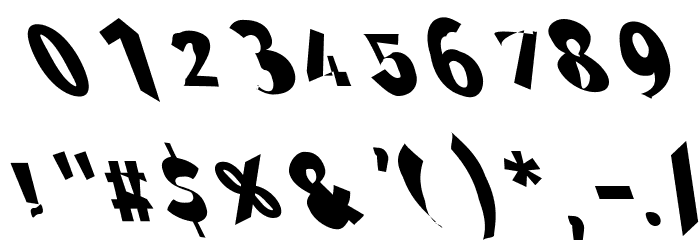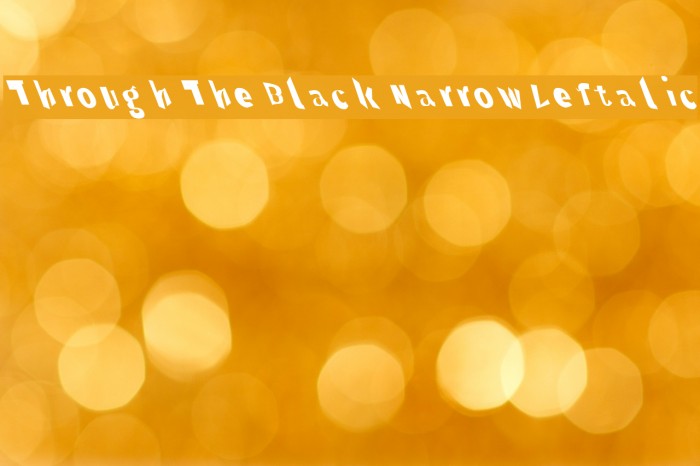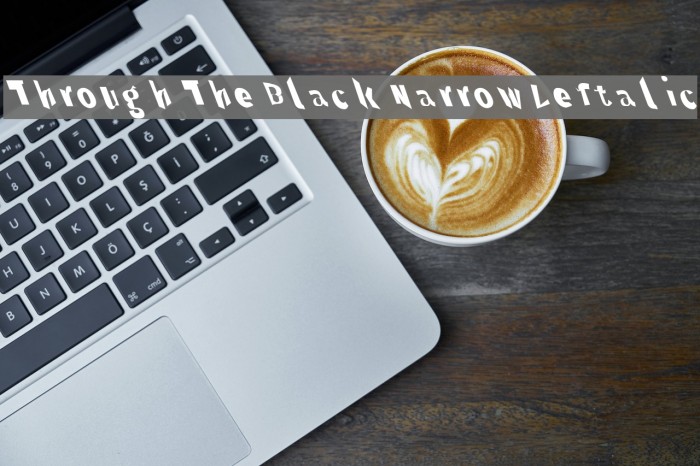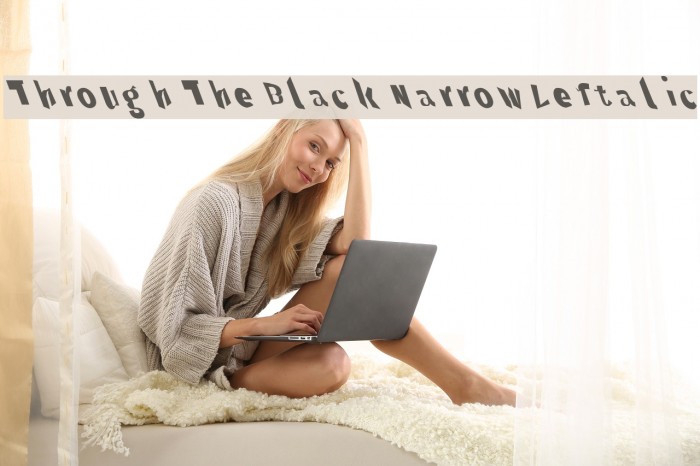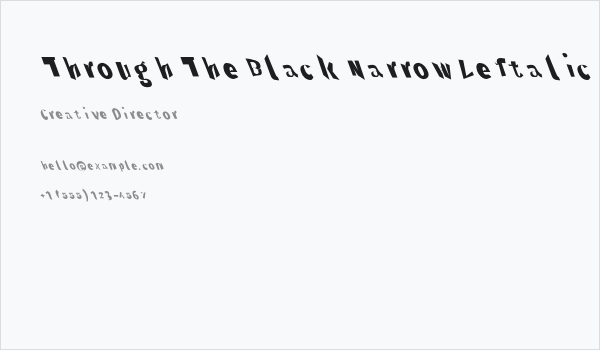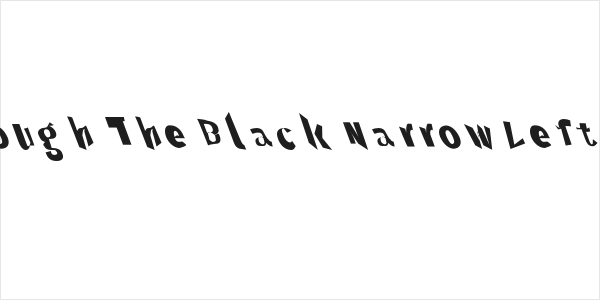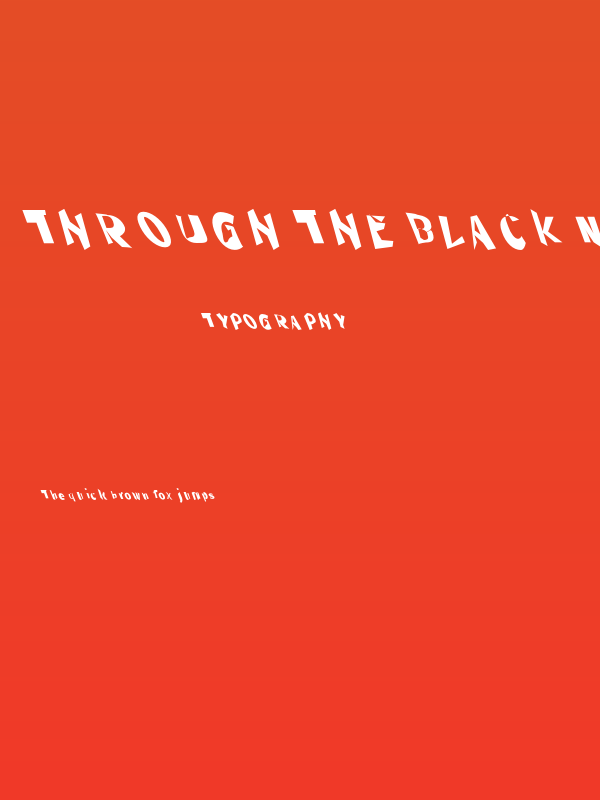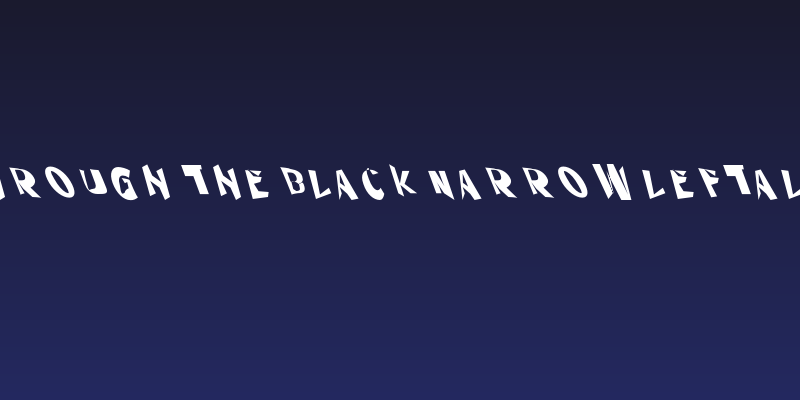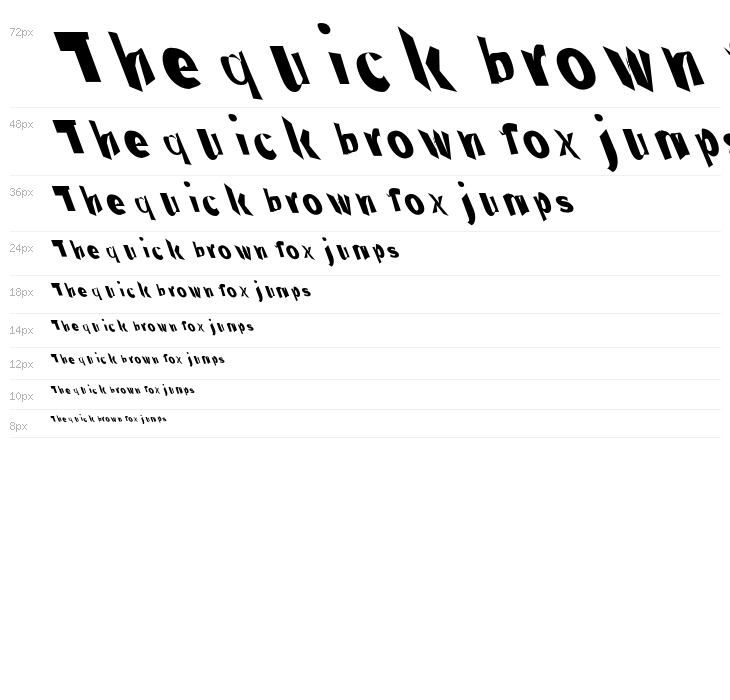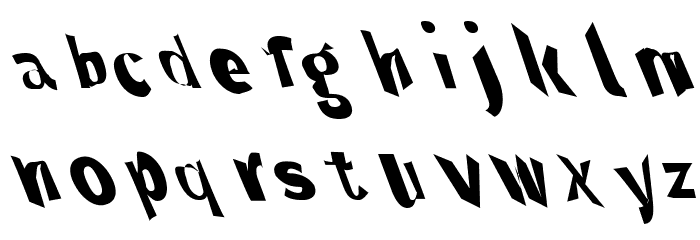
Through The Black Narrow Leftalic Font
Through The Black Narrow Leftalic Description
This font features a bold and dynamic style with a distinct slant to the left, giving it a sense of movement and energy. The characters are narrow, with sharp angles and unique cutouts that create a striking visual impact. The uppercase and lowercase letters maintain a consistent design, while the numerals and special characters complement the overall aesthetic. This font's boldness and angularity make it stand out, suitable for projects that require a strong and unconventional look.
| Proposed Projects | Ideal for edgy branding, music album covers, modern posters, and creative advertising campaigns. |